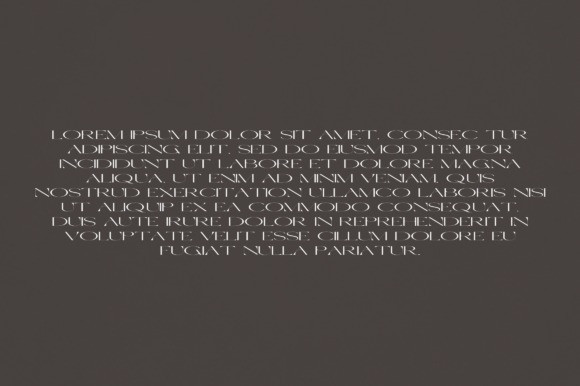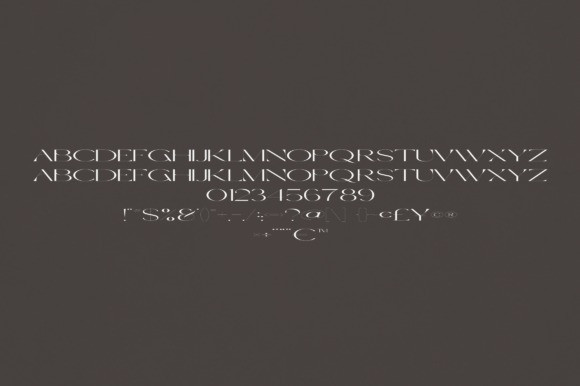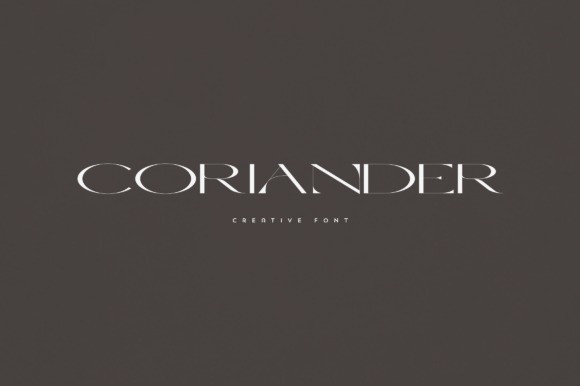
Coriander Font
Coriander Font is an elegant and versatile display font that will make your typography truly unique! It will enchant every logo, branding, headline, or plain text!